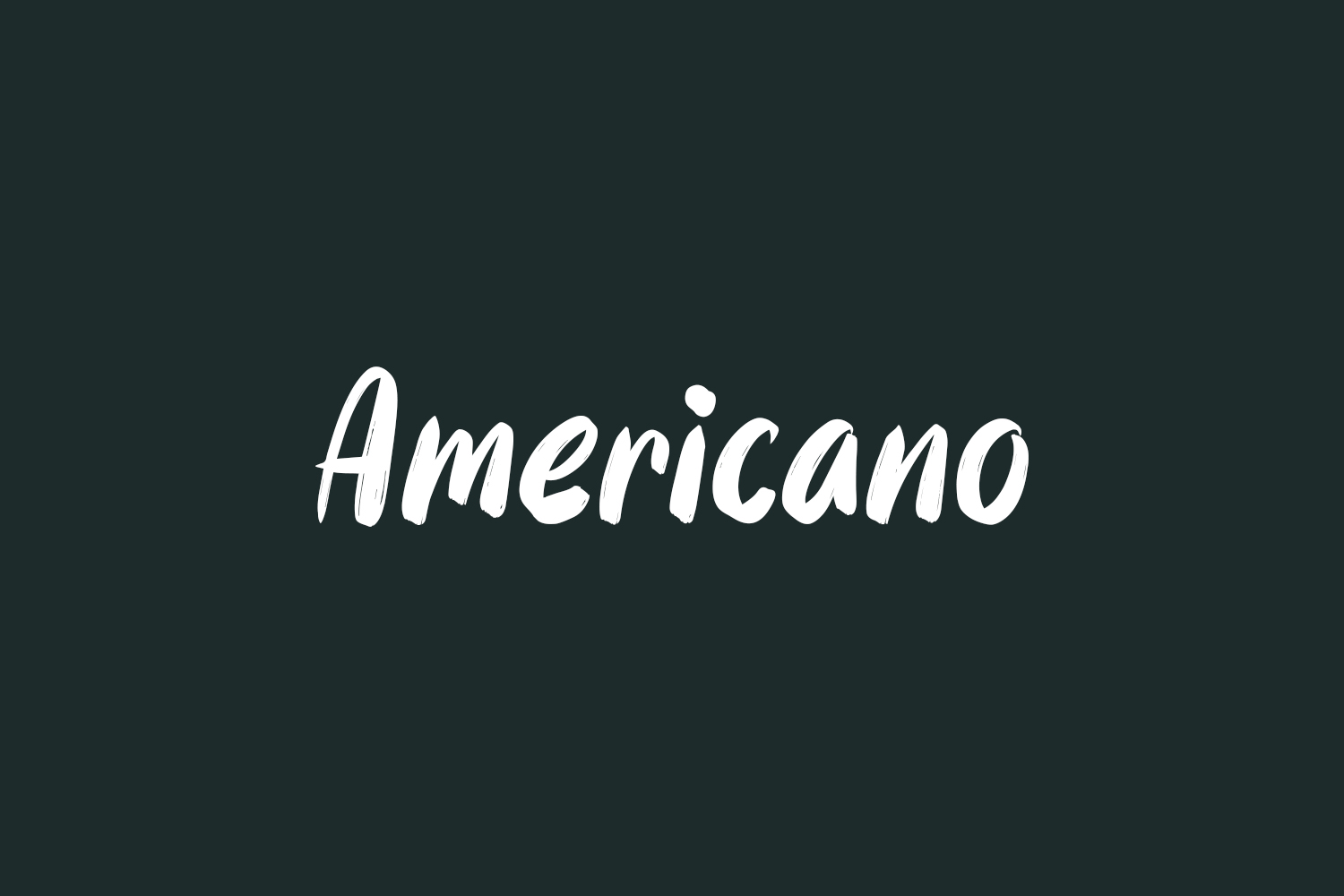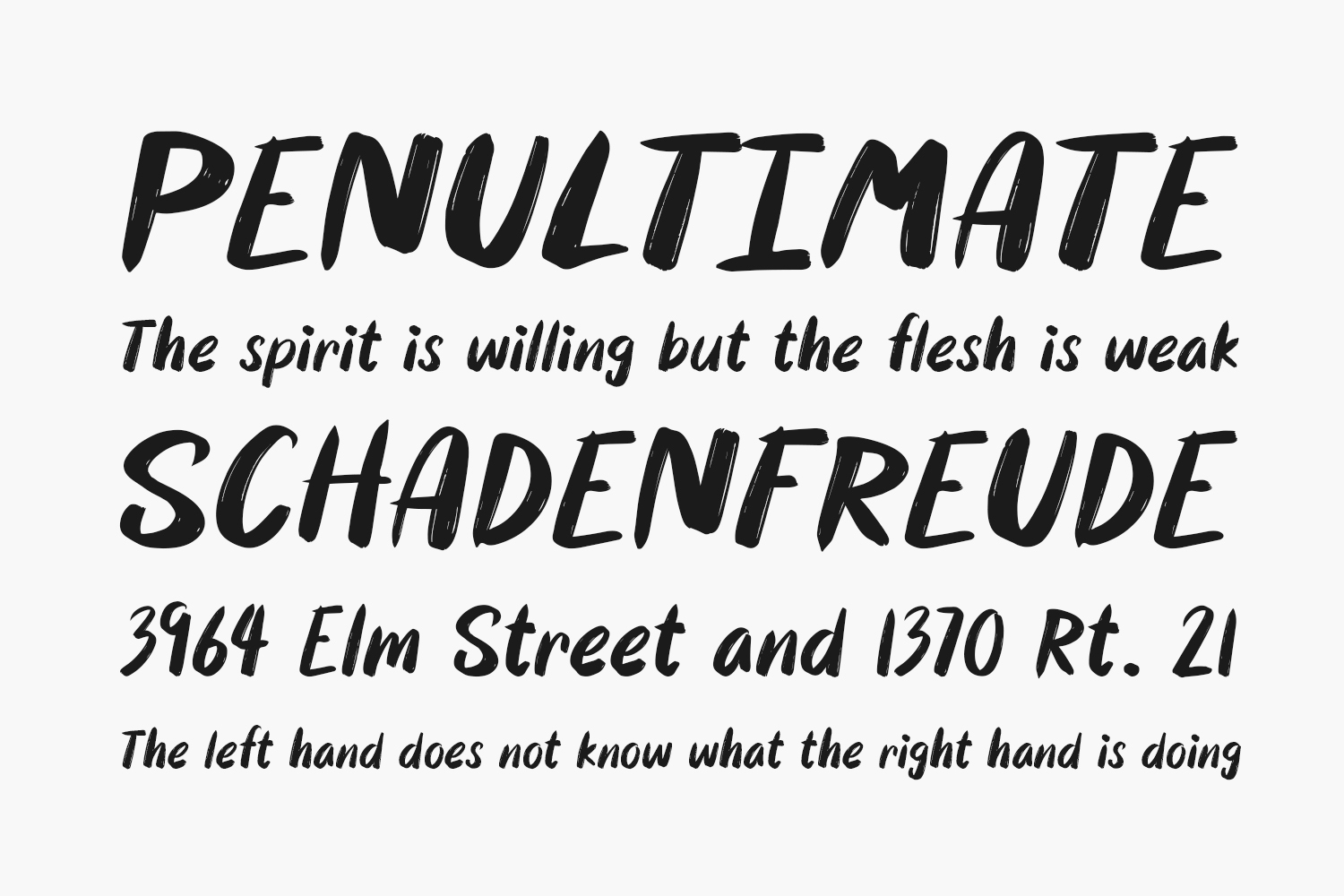
Americano Free Font is a friendly and whimsical display font. Playful and a little bit quirky, this font is the perfect fit for all of your logos, branding, posters, and crafty DIY projects. Americano Free Font was designed by AquariiD and is free for personal use only. Please purchase the full version for commercial use.